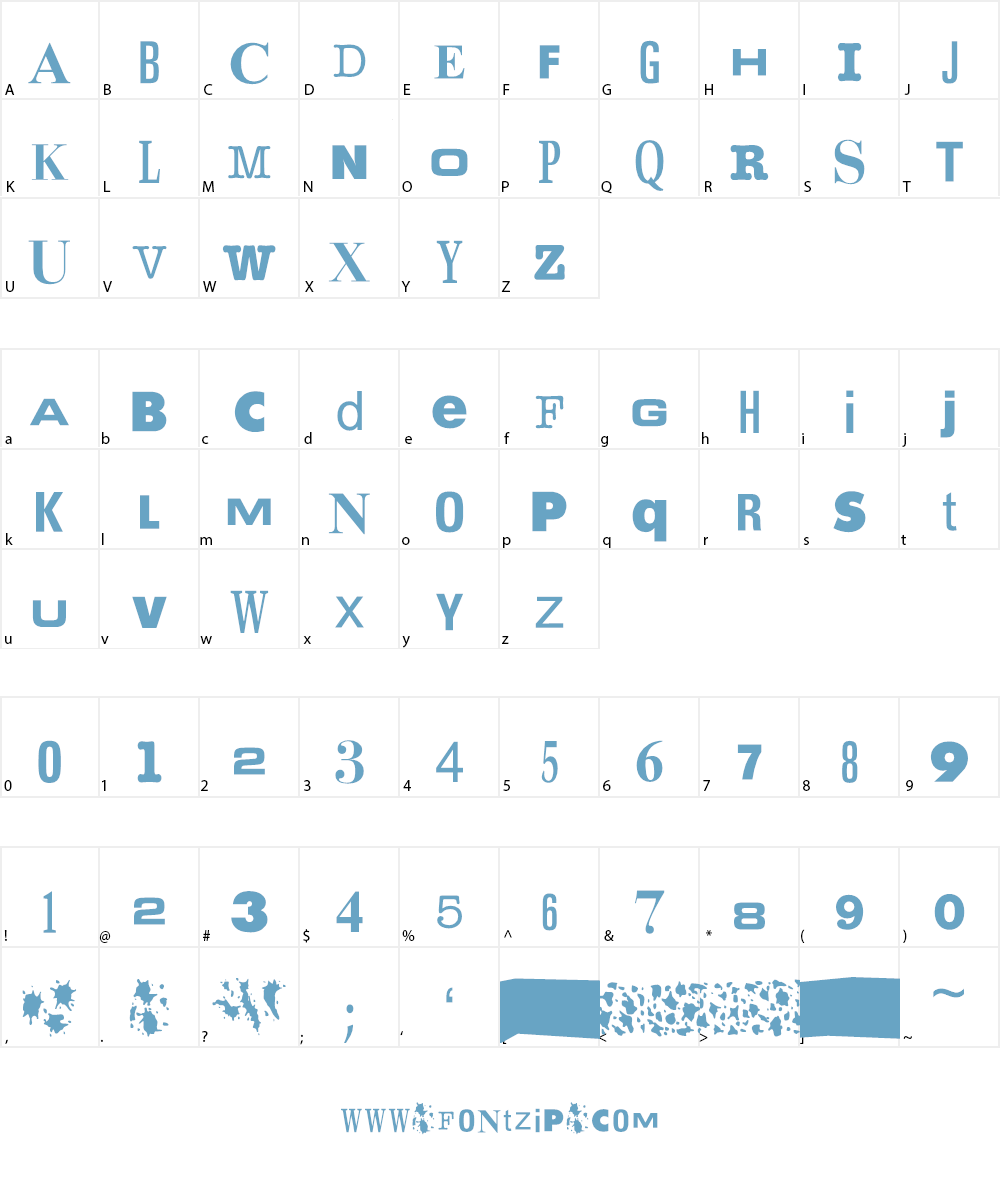
Based on the second season credits from The Young Ones TV series. In turn based on the Sex Pistols first LP cover. In turn based on a ransom note. In turn based on writing. In turn based on scratching things in the dirt. Intern based under Bill Clinton.